Need some type inspiration? We reveal the font pairings that were just made for each other.
Finding font pairings that set each other off, don’t fight the eye for attention, and harmonise without becoming homogenous and dull is an art. The age-old rule goes: concord or contrast, but don’t conflict.
But with so many professional typefaces and free fonts to choose from, how do you find two that work in harmony? Read on for our pick of the best font pairings – or jump to the end of page for some top tips on finding your own. If you need to brush up on your typography knowledge, take a look at our guide to the different font types you should know.
01. Montserrat and Courier New
Google Font Montserrat was designed specifically for use online, while Courier New is a classic typewriter font. On paper (metaphorically), you might not think they’d make the ideal font pairing, but you’d be wrong. Montserrat’s light, modern sans-serif letterforms offset Courier New’s heavier, retro vibe perfectly.
02. Alegreya Sans SC and Source Sans Pro
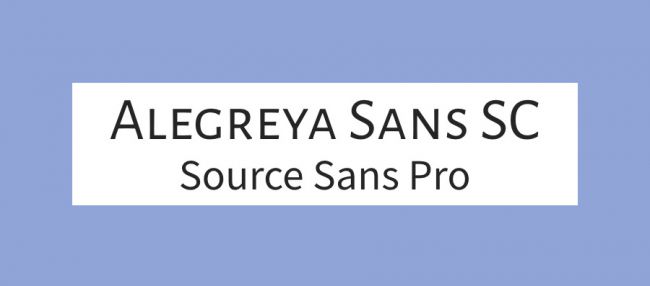
Alegreya is a super-family that includes sans and serif sister families alongside this small caps version, designed by Juan Pablo del Peral for Huerta Tipográfica. The family has a slightly calligraphic edge, and is designed to be suitable for long blocks of text. However, the small caps variant is best suited to headers. We suggest pairing it with Source Sans Pro, Adobe’s first open source typeface family, designed by Paul D. Hunt.
03. Pacifico and Quicksand
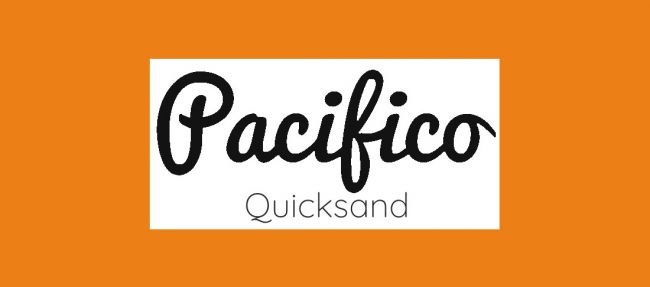
For a delightful font pairing with an unintentionally tropical theme, try Pacifico and Quicksand. The former is a pleasingly free and flamboyant brush font that’s ideal for use in headings. The latter is a sans-serif with rounded terminals and some quirky touches – including that distinctive descender on the uppercase ‘Q’. Quicksand was actually also designed as a display typeface, but it’s clear enough to work well at small sizes, too.
04. Julius Sans One and Archive Narrow
If you’re aiming for a professional look, this is a great font pairing to try. Julius Sans One works only comes in one weight and is an all-caps font, but it’s a top choice for a display font, with its fine stroke and broader baseline. The more geometric Archivo Narrow is a perfect match. It has been designed to work equally well in print and digital.
05. Playfair Display and Raleway
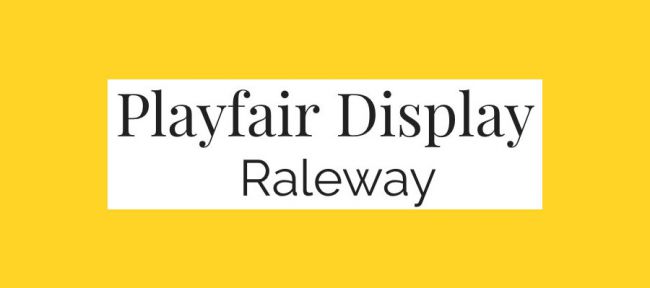
Display font Playfair draws inspiration from the period in the 18th century when quills were being replaced by pointed steel pens. This, alongside printing developments, led to high-contrast letterforms with delicate hairlines becoming popular. Elegant sans serif Raleway makes a perfect font pairing.
06. Oswald and Lato
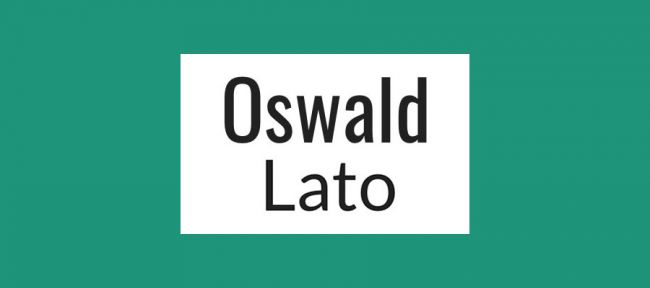
Oswald was launched in 2011 as a reworking of the ‘Alternate Gothic’ sans-serif type style. It makes a great pairing with Lato (which translates as ‘summer’ in Polish), a warm yet stable sans serif. Both are available in a range of different weights and variants, making this font pairing nice and versatile.
07. Super Grotesk and Minion Pro
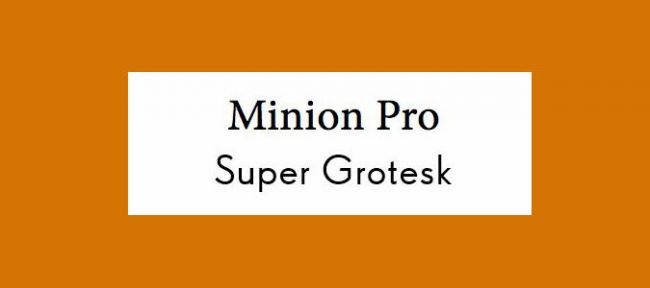
The ever-popular serifed Minion Pro works perfectly as a headline font when coupled with the nimble sans-serif Super Grotesk for body copy. Together, these fonts create a modern sense of effortless elegance.
08. Libre Franklin and Libre Baskerville
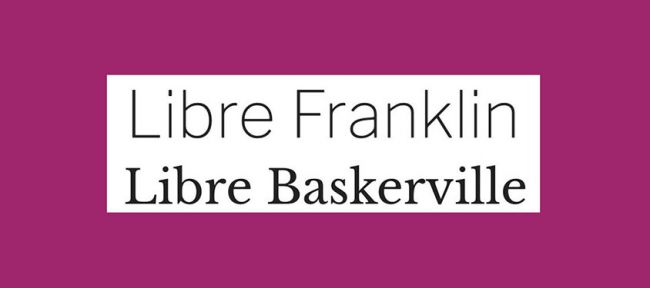
These two libre typefaces make a great font pairing if you’re after a traditional feel. Both Libre Baskerville and Libre Franklin have been optimised for use on screen. The former is nice and readable, so ideal for use as body text, while the latter is better suited to headlines. Nine different weight options make it nice and versatile.
09. Freight Sans and Freight Text
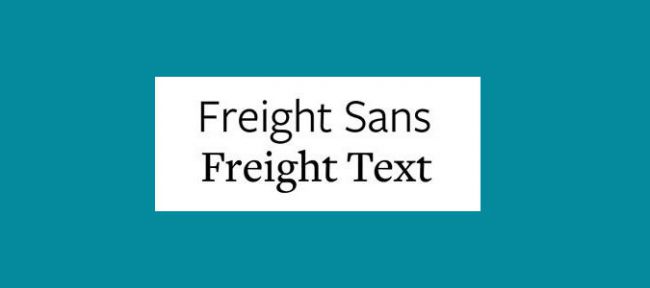
Working within superfamilies makes it easy to find harmonious font pairings. GarageFonts’ Freight is a great example. It’s available in a large range of weights and styles, including Sans, Text, Display and Micro versions – giving you a versatile typographic toolkit to work with.
10. Kaufmann and NeutraDemi
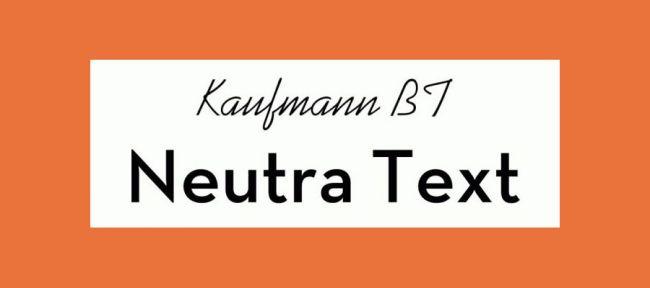
If you’re after something more unexpected, how about this duo? The flowing stylings of Kaufmann add a touch of handwritten flair to this odd couple, and offset the straight and angular sans-serifed NeutraDemi perfectly. This font pairing might not be the most obvious match, but that doesn’t stop them playing off one another beautifully.
11. Brandon Grotesque and Minion Pro
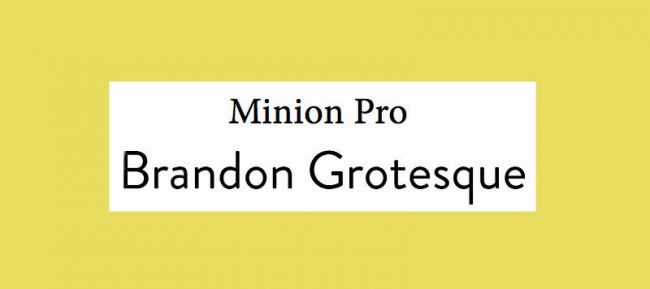
Due to its versatility, the reliable Minion Pro appears a few times in this list. This time it’s playing second fiddle to the bold and attention-grabbing Brandon Grotesque. This is a classic serif and sans-serif font pairing, with both typefaces remaining crisp and easy to scan in any page layout.
12. Josefin Slab and Patrick Hand
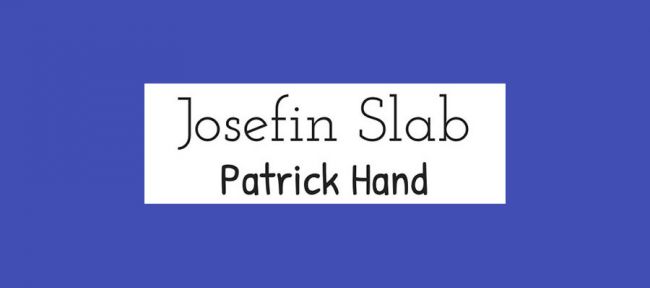
When creating Josefin Slab, designer Santiago Orozco wanted something between Kabel and Memphis, but with modern details. The final typeface has distinctive, typewriter-style details, and is ideal for use in headlines. Combine it with body copy in Patrick Hand for a font pairing packed with character. The latter, based on the designer’s own handwriting, has a neat, friendly vibe.
Finally, Modern serifs have an often very dramatic contrast between thick and thin for a more pronounced, stylised effect, as well as a larger x-height. Included in this third sub-category are Bodoni, Didot, New Century Schoolbook and Walbaum. Again, Geometric sans serifs marry best with these.
So what does all this actually look like in practice? Here’s our reference list of tried-and-testing font pairings that are guaranteed to avoid conflict.